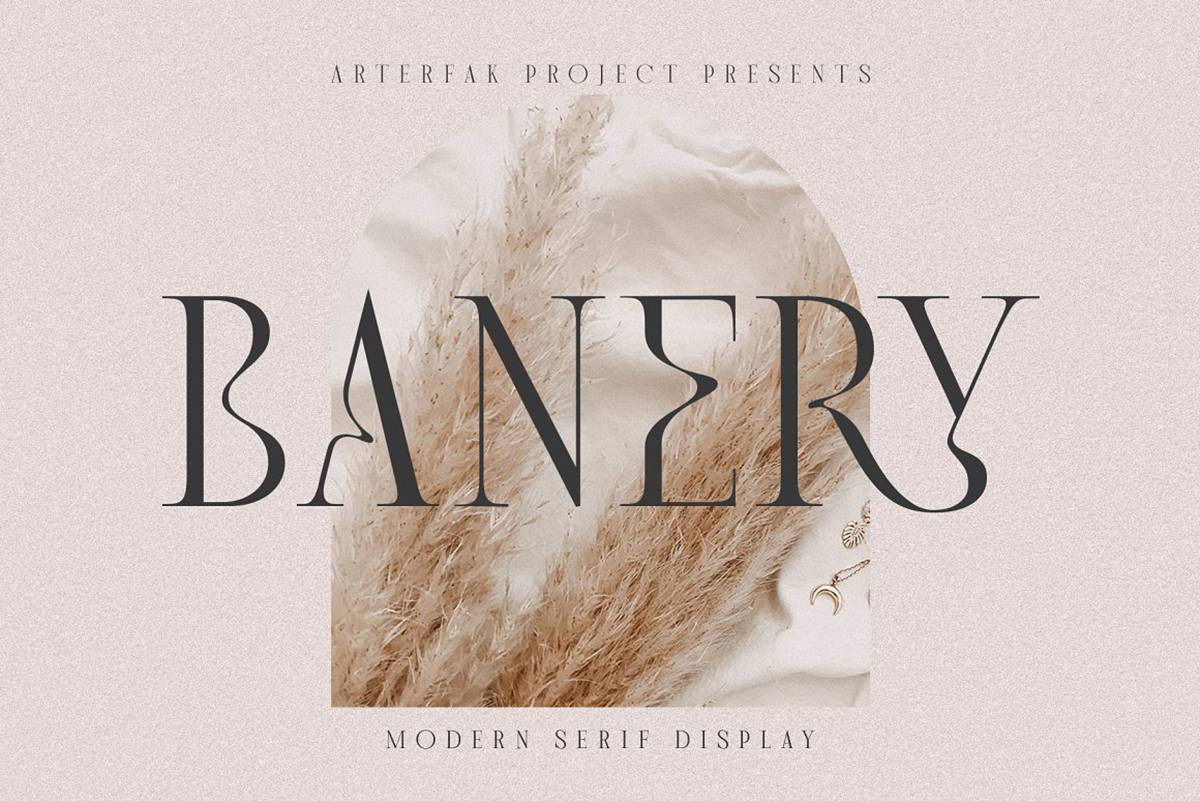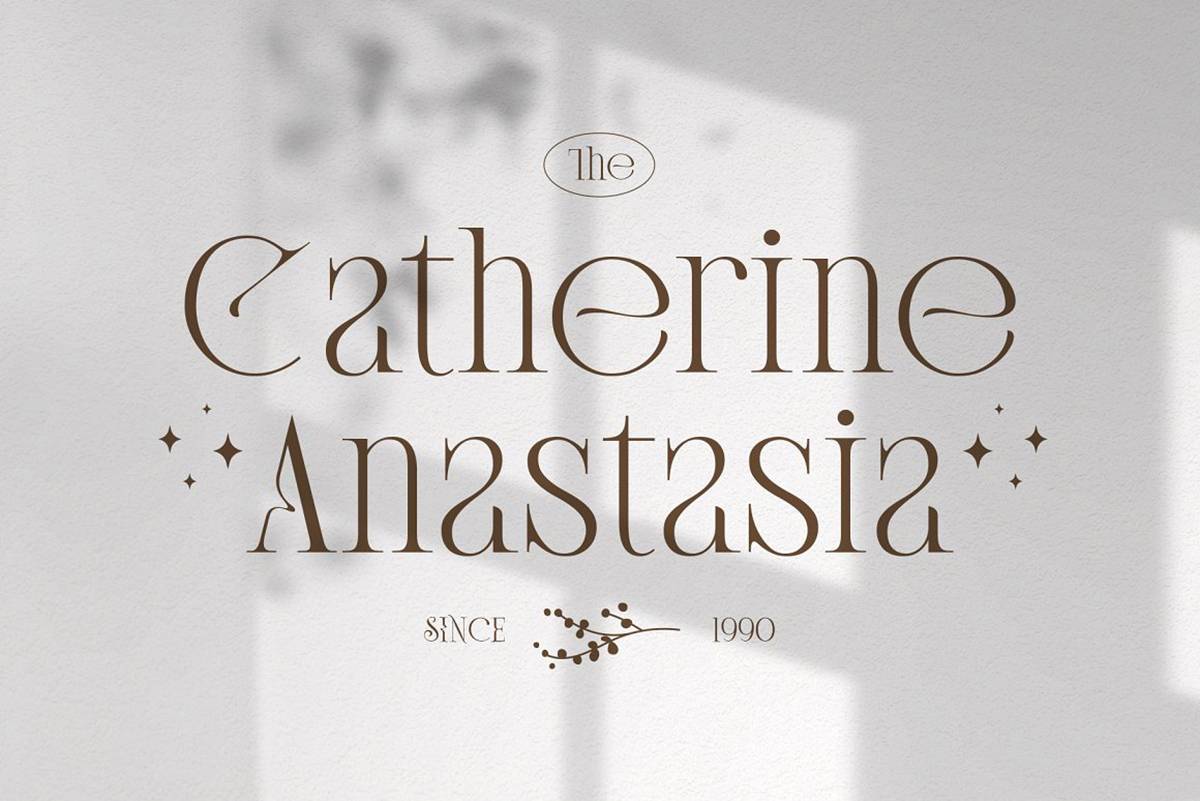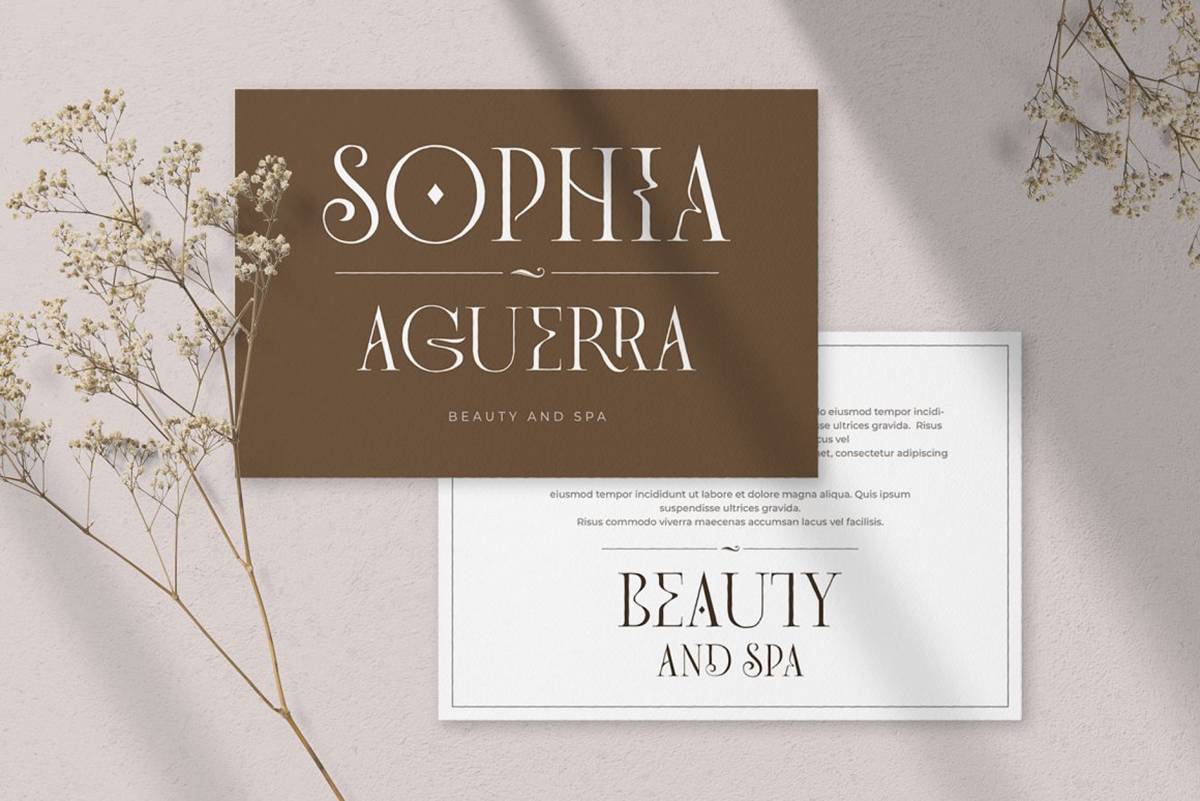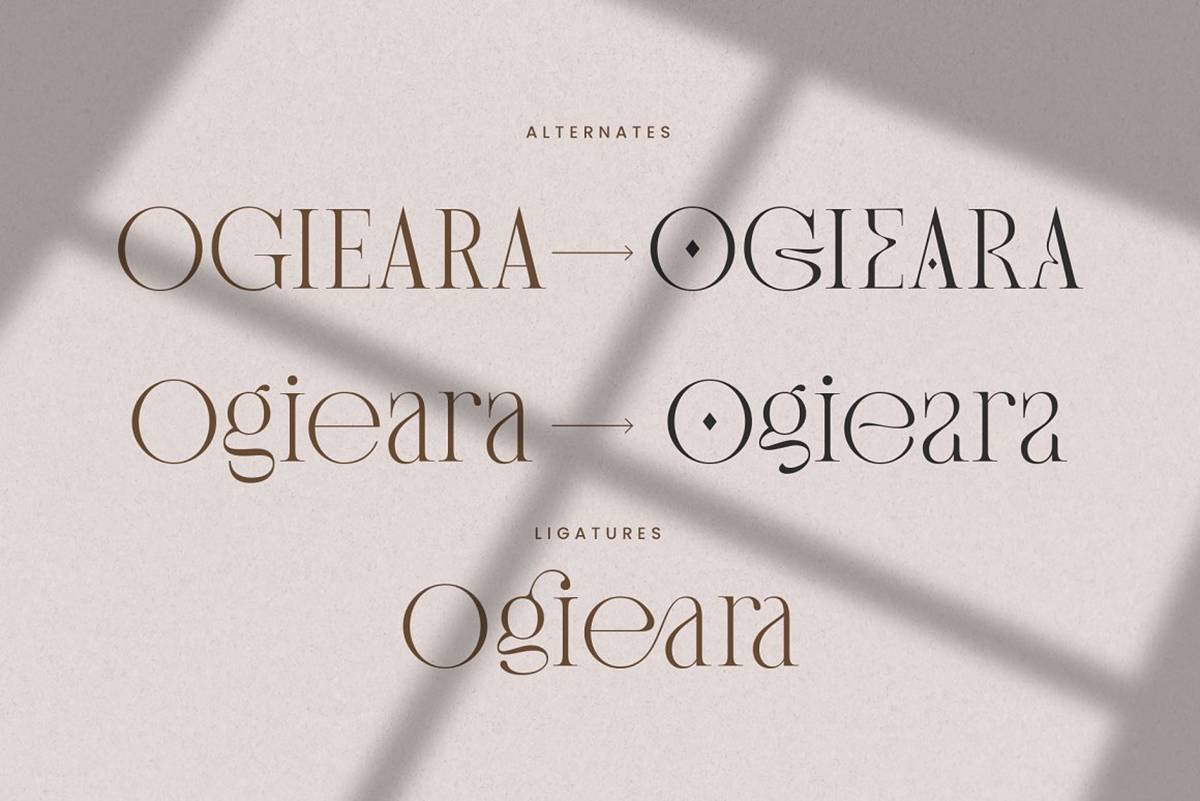
Banery is an elegant serif font featuring a modern Didone style with high contrast between thick and thin strokes, slender letterforms, and refined bracketed serifs. Its tall, narrow characters and delicate details convey a sophisticated and luxurious feel, making it ideal for upscale branding, fashion editorials, and stylish headlines where a sleek, contemporary elegance is desired.
Banery Font
About Banery Font
| Font family | Banery Font |